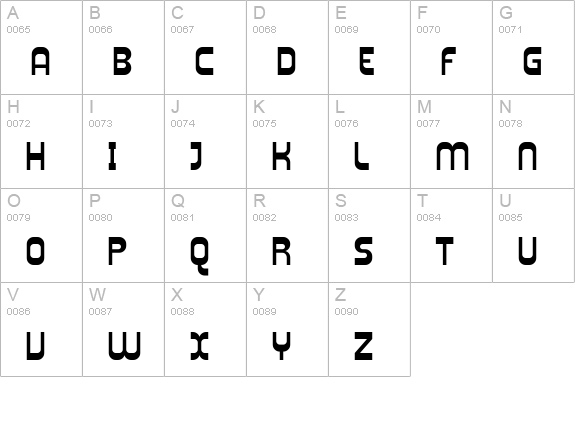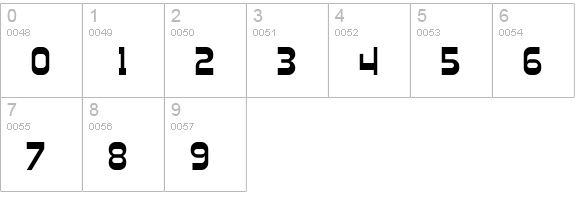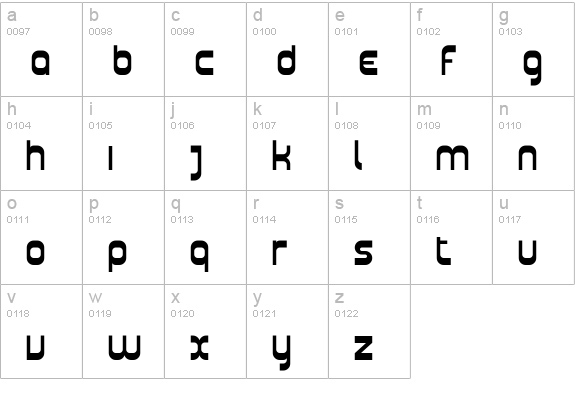
Introducing Plasmatica, a strikingly bold and modern font that is sure to make a lasting impression! This captivating typeface is perfect for those seeking a font that exudes confidence, creativity, and a touch of futuristic elegance. Plasmatica boasts clean lines, sharp edges, and a distinctive geometric structure that sets it apart from the crowd. Its powerful presence is enhanced by its generous letter spacing, ensuring readability even at smaller sizes. Whether used for headlines, logos, or branding materials, Plasmatica commands attention with its strong and commanding presence. What sets Plasmatica apart is not only its stunning aesthetics but also its accessibility. This incredible font is available for free download exclusively at FontsMarket.com. Yes, you read that right - Plasmatica can be yours without spending a single penny! This means that designers, creatives, and typographic enthusiasts alike can experiment, create, and bring their visions to life without any financial barriers. Plasmatica's versatility knows no bounds. Its bold and captivating nature makes it perfect for a wide range of projects, from print materials such as posters and brochures to digital designs like websites and social media graphics. Its clean and modern aesthetic allows it to effortlessly adapt to various design styles, ensuring that it always stands out, no matter the context. So why wait? Download Plasmatica today and unlock endless possibilities for your design projects. With its striking visual appeal and the freedom of having it at your disposal for free, Plasmatica is undoubtedly a font that will elevate your work to new heights. Don't miss out on this incredible opportunity - head over to FontsMarket.com and get your hands on Plasmatica now!